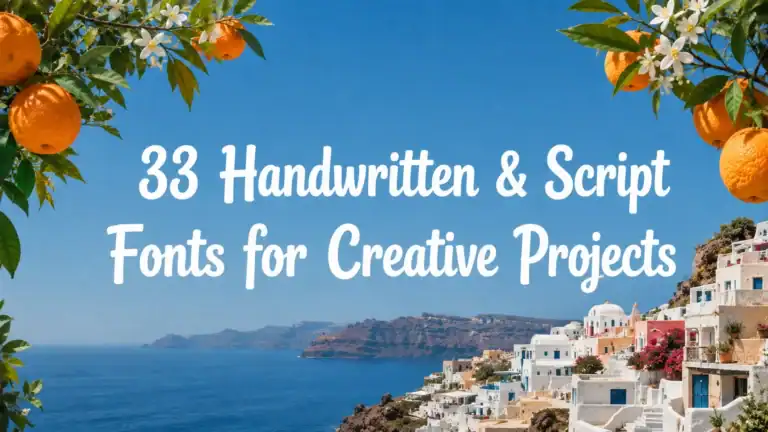
33 Handwritten & Script Fonts for Creative Projects
Not every project needs the drama of a gothic blackletter or the polish of a formal calligraphy set — sometimes a design just needs Handwritten Fonts that feel personal, warm, and a little imperfect. This collection brings together 33 Handwritten Fonts and script Fonts, from festive holiday styles to relaxed marker-drawn scripts and a four-in-one texture pack, each built for branding, packaging, invitations, and everyday creative projects.
1. Harry
Harry is a meticulously crafted bold display font with a full character set, vector-clean quality, smooth curves, and sharp edges optimized for high-resolution printing.
It’s built for vintage posters, apparel, branding, and retro-inspired social graphics, delivering an instant dose of personality across editorial layouts and website headers.
View This Font →2. Roselya
Roselya is a handwritten script font with elegant, fluid strokes built for modern sophistication rather than a stiff, formal look.
It’s a strong fit for luxury wedding stationery, intimate event branding, and high-end editorial signatures, working equally well across print and digital design.
View This Font →3. Bigsister
Bigsister is a delightful handwritten display font with a light-hearted, whimsical rhythm built for genuine sweetness and comfort rather than formality.
It’s ideal for wedding invitations and personalized cards, and any project that could use a cheerful, inviting touch.
View This Font →4. Taldose
Taldose blends classic elegance with a modern touch across four distinct styles — Clean, Blur, Stamp, and Extrude — plus a bonus complementary sans-serif font called Brookvale.
The Clean style suits professional design, Blur and Stamp add a handcrafted vintage texture, and Extrude brings bold, dimensional impact to headlines and logos.
View This Font →5. Color Artist
Color Artist unleashes a friendly, casual, hand-drawn rhythm that looks like chalk art on a classroom board rather than a polished digital script.
It’s built for kids’ book covers, school project headers, teacher resources, sticker packs, and Cricut or Silhouette vinyl craft projects.
View This Font →6. Everlasting Orchid
Everlasting Orchid is a friendly handwritten sans-serif with smooth, bold strokes and clean, rounded curves, giving every word an approachable, handcrafted feel.
It’s a natural fit for botanical branding, floral shop logos, wellness banners, and greeting cards, plus Cricut and Silhouette craft SVG projects.
View This Font →7. Graeting
Graeting is a unique, professional entry into modern handwriting, featuring tall, thin strokes with a subtle, airy slant for a crisp, refined aesthetic.
It suits travel photography branding, outdoor gear identities, and sophisticated web design that wants a fresh, mountain-breeze kind of clarity.
View This Font →8. Summer Minilight
Summer Minilight is a charming handwritten font with smooth strokes and organic lines that evoke a relaxed, heartfelt atmosphere rather than a stiff script.
It’s versatile across branding, invitations, and social media graphics, bringing genuine relaxed charm to any project.
View This Font →9. Beach Nightride
Beach Nightride brings a relaxed, sporty energy to every letter, looking like it was drawn with a marker rather than a formal calligraphy pen.
It suits branding, logos, wedding supplies, greeting cards, fashion lookbooks, and marketing promotions that want to look luxurious yet casual.
View This Font →10. Mountain Date
Mountain Date is a casual, creative font with round, playful, hand-drawn strokes that create a relaxed, approachable feel right out of the box.
With PUA-encoded glyphs and broad software compatibility across Photoshop, Corel, Illustrator, and Canva, it suits personal projects, invitations, and social graphics.
View This Font →11. Camping
Camping delivers a tasteful, versatile handwritten style suited to wall displays, wedding invitations, social media logos, advertisements, and product packaging alike.
PUA-encoded characters mean no extra software is needed, and it’s accessible directly in Illustrator, Photoshop, InDesign, and Word.
View This Font →12. Origami
Origami is a lovely handwritten typeface with a genuinely timeless quality, where every letter carries its own unique, beautiful touch.
It’s a strong choice for eye-catching logos, branding, and quotes that need a design to feel alive rather than mechanically typed.
View This Font →13. Overthinking
Overthinking is another tasteful handwritten option built for wall displays, wedding invitations, social media logos, advertisements, and product packaging.
If you want a dependable starting point, Origami and Marilatia are versatile, timeless Handwritten Fonts, while Taldose is the better buy if you need multiple textures from one font family rather than a single fixed style. If script Fonts aren’t quite the mood, our Old English & Blackletter Fonts and Gothic Display Fonts collections cover a darker direction — bookmark this page and check back as new Handwritten Fonts get added.